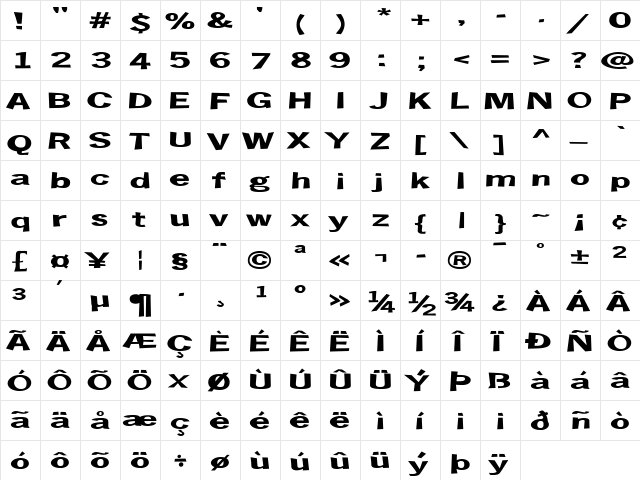
Notquite Bold
| Foundry | Notquite Bold\ by Adam Roe, Lunchbox Design, |
Design Context for Notquite Typeface
Notquite offers clean, dependable letterforms without strong stylistic allegiance, making it a practical choice for designers who need flexibility. The heavy weight commands attention and anchors typographic hierarchies.